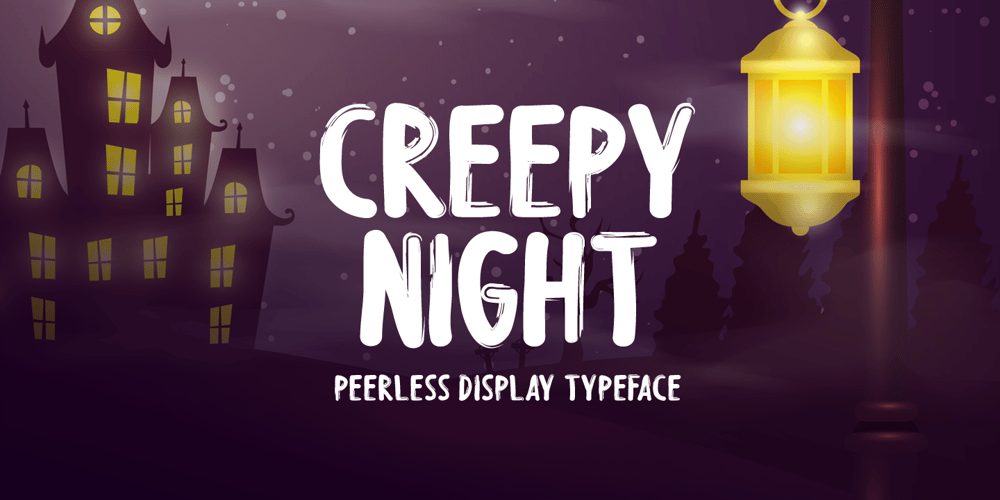
Creepy Night Font Family was designed by Md Shohail Bhuian and published by Seemly Fonts. Creepy Night contains 1 styles and family package options. Creepy Night is an incomparable display font. Masterfully designed to become a true favorite, this font has the potential to bring each of your creative ideas to the highest level!